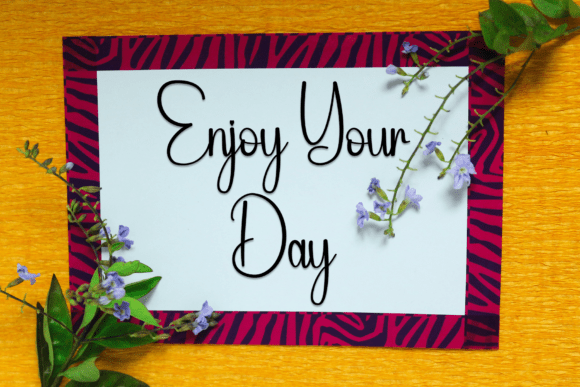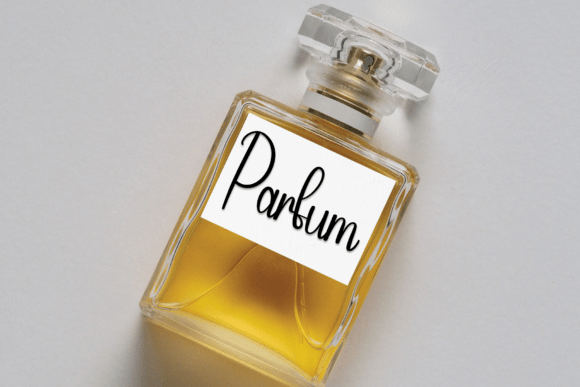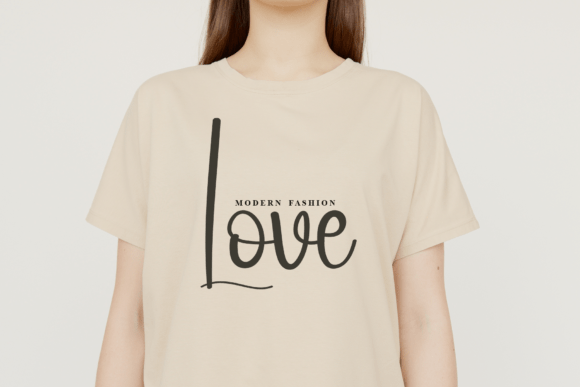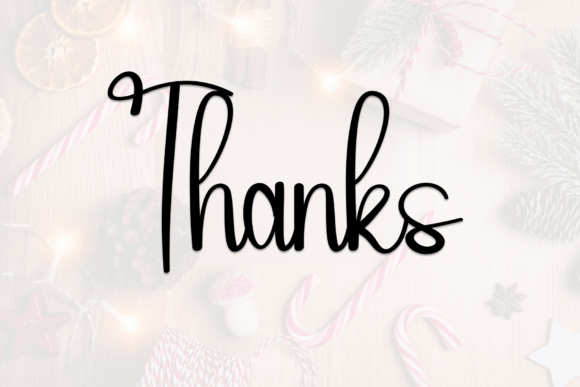
Candy Cane Font: Elevate Your Designs with Modern Elegance
In the world of typography, few fonts capture the essence of creativity and modern elegance as effectively as the Candy Cane font. This stylish script font is designed to bring a touch of sophistication and artistic flair to various design projects, making it a versatile choice for designers and crafters alike. With its flowing strokes, graceful curves, and expressive letterforms, Candy Cane embodies the beauty of hand-drawn calligraphy, infused with a contemporary twist.
The Characteristics of Candy Cane Font
The Candy Cane font is distinguished by its unique characteristics, which set it apart from more traditional typefaces. Its flowing strokes and graceful curves give it a dynamic and fluid appearance, reminiscent of hand-drawn calligraphy. The expressive letterforms add a touch of personality to each character, making the font ideal for designs that require a bit of flair and creativity.
One of the key advantages of the Candy Cane font is its versatility. It can be used in a wide range of design applications, from logos and invitations to packaging and social media graphics. This adaptability makes it an excellent choice for designers who need a font that can keep up with their creative demands. Whether you’re crafting a brand identity, designing wedding invitations, or creating engaging social media content, Candy Cane can add an artistic and sophisticated touch to your work.
Ideal for Creative Projects
For designers and crafters looking for a font that can elevate their projects, Candy Cane is an excellent option. Its modern elegance and refined details make it perfect for projects that require a bit of luxury and sophistication. From high-end branding to exclusive event invitations, this font delivers both visual charm and versatility.
Key Features of Candy Cane Font
- Flowing Strokes: The font features smooth, flowing strokes that give it a dynamic and fluid appearance.
- Graceful Curves: The graceful curves of the Candy Cane font add to its elegance and sophistication.
- Expressive Letterforms: Each character in the font is designed to be expressive and unique, adding a touch of personality to your designs.
- Modern Elegance: The font captures the essence of modern elegance, making it perfect for designs that require a sophisticated touch.
- Versatility: Candy Cane can be used in a variety of design applications, from logos and invitations to packaging and social media graphics.
Tips for Using Candy Cane Font Effectively
To get the most out of the Candy Cane font, consider the following tips:
- Pair it with Neutral Fonts: Pair Candy Cane with neutral fonts to create a balanced and harmonious design.
- Use it for Headlines: The font’s elegant and expressive nature makes it perfect for headlines and titles.
- Experiment with Colors: Don’t be afraid to experiment with different colors to find the perfect match for your design.
- Pay Attention to Spacing: Make sure to adjust the spacing between letters to ensure a smooth and fluid appearance.
In conclusion, the Candy Cane font is a stylish and versatile typeface that can elevate any design project. Its modern elegance, flowing strokes, and expressive letterforms make it perfect for designers and crafters looking to add a touch of sophistication and creativity to their work. With its wide range of applications and ease of use, Candy Cane is an excellent choice for anyone looking to take their designs to the next level.
Whether you’re a professional designer or a crafter, the Candy Cane font is an excellent addition to your typography arsenal. Its unique blend of modern elegance and creative flair makes it perfect for a wide range of design projects. So why not give it a try and see how it can elevate your designs?